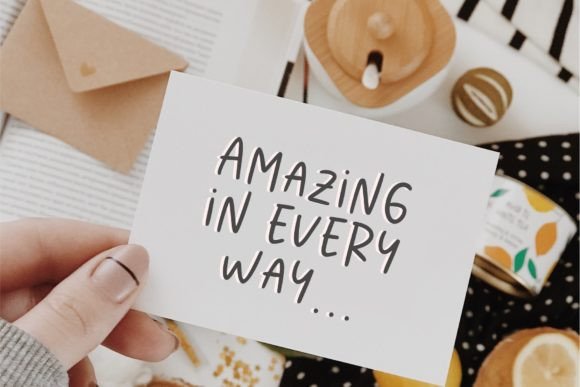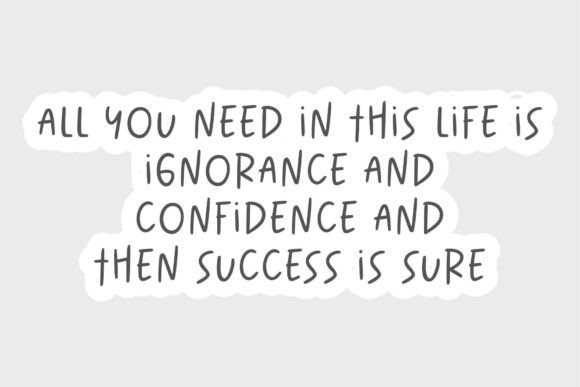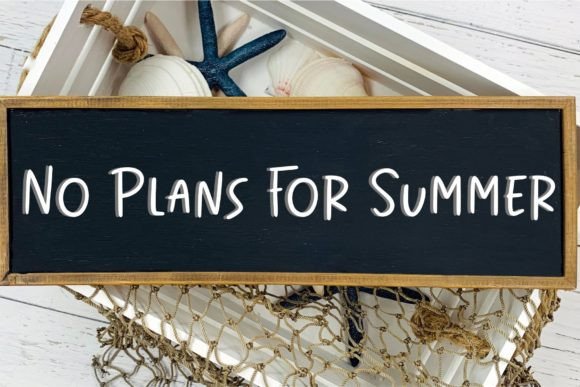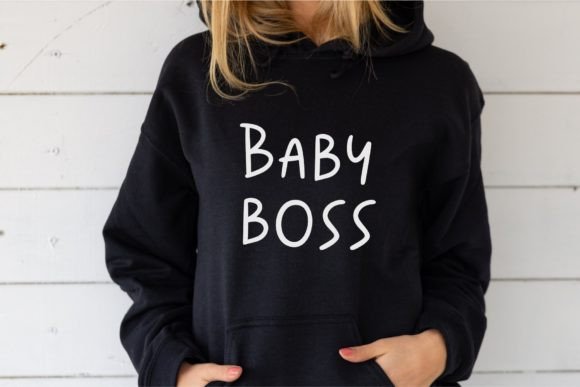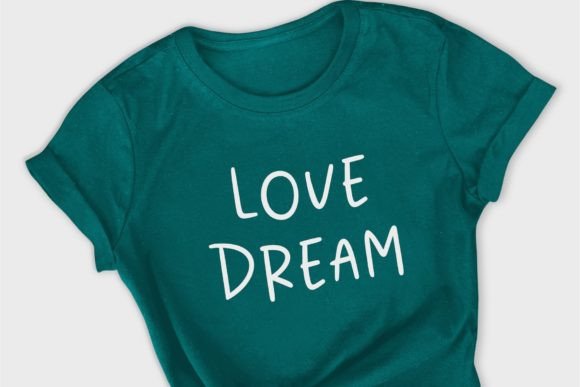
Meringue Cookies Font
About Meringue Cookies Font
“Meringue Cookies” is a delightful handwritten font brimming with positivity and character. Its friendly, hand-lettered style exudes charm and adds a unique flair to any design. This font is not just a typeface; it’s a personality, perfect for a wide array of creative applications.
Whether you’re crafting inspirational quotes, eye-catching headings, distinctive logos, cohesive branding materials, appealing merchandise designs, or engaging website content, “Meringue Cookies” offers a perfect blend of charm and style. Its playful yet elegant design captures attention and creates a warm, inviting atmosphere in your projects.
This font is particularly well-suited for quotes, allowing you to emphasize the positivity and character of your message. When used in headings, it draws the viewer’s eye and establishes a friendly tone. In logos, “Meringue Cookies” adds a personal touch, making your brand memorable and approachable. When applied to merchandise, it transforms products into unique, desirable items that stand out. For websites, it enhances the user experience, making content more readable and engaging.
The versatility of “Meringue Cookies” lies in its ability to adapt to various design needs while maintaining its distinctive personality. Its handwritten quality creates a sense of authenticity and human connection, making it particularly appealing in today’s digital age.
Embrace the positivity and character of “Meringue Cookies” in your creative endeavors. Let its friendly and charming demeanor breathe life into your designs, leaving a lasting impression on your audience. Elevate your projects with this delightful font and infuse them with a touch of warmth and style that resonates with people’s hearts.